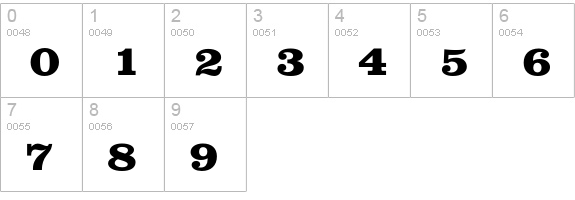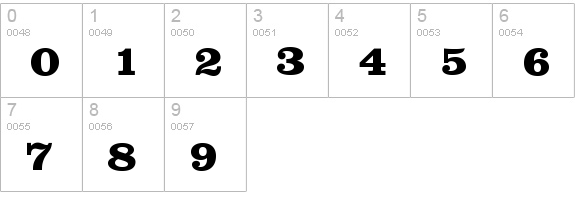
Clarendon-ExtraBold is an extra-heavy, attention-grabbing variant in the Clarendon typeface family \xE2\x80\x94 well suited to high-impact headlines, posters, and bold branding.
Clarendon-ExtraBold is a bold and impactful font that exudes strength and authority. Its thick strokes and sharp serifs make it perfect for headlines and titles that demand attention. This versatile typeface is ideal for conveying a sense of power and confidence in your designs. Whether you're creating posters, logos, or branding materials, Clarendon-ExtraBold will make a bold statement. The best part is that Clarendon-ExtraBold is available for free download at FontsMarket.com. Now you can easily access this premium font without any cost, allowing you to elevate your projects with its bold and commanding presence. Don't miss out on this opportunity to enhance your designs with the timeless appeal of Clarendon-ExtraBold. Download it now and make your message stand out!